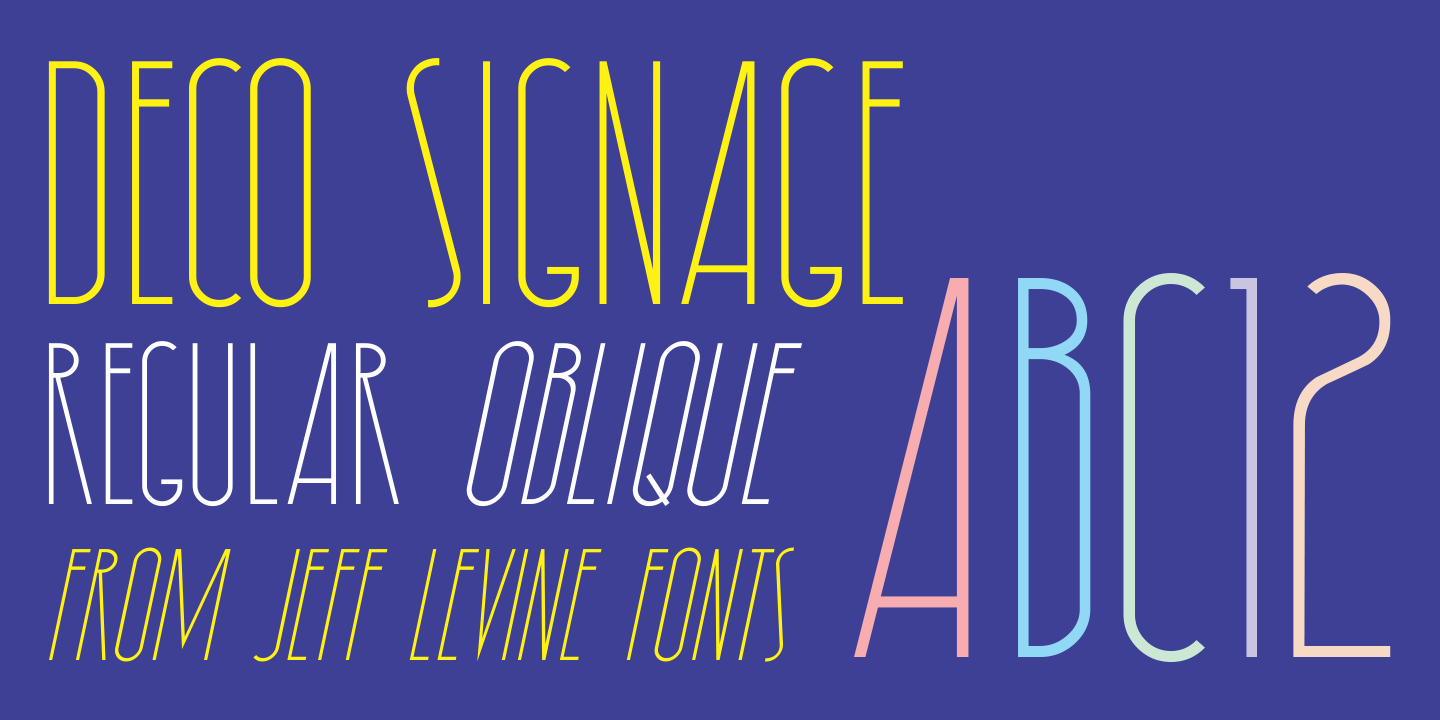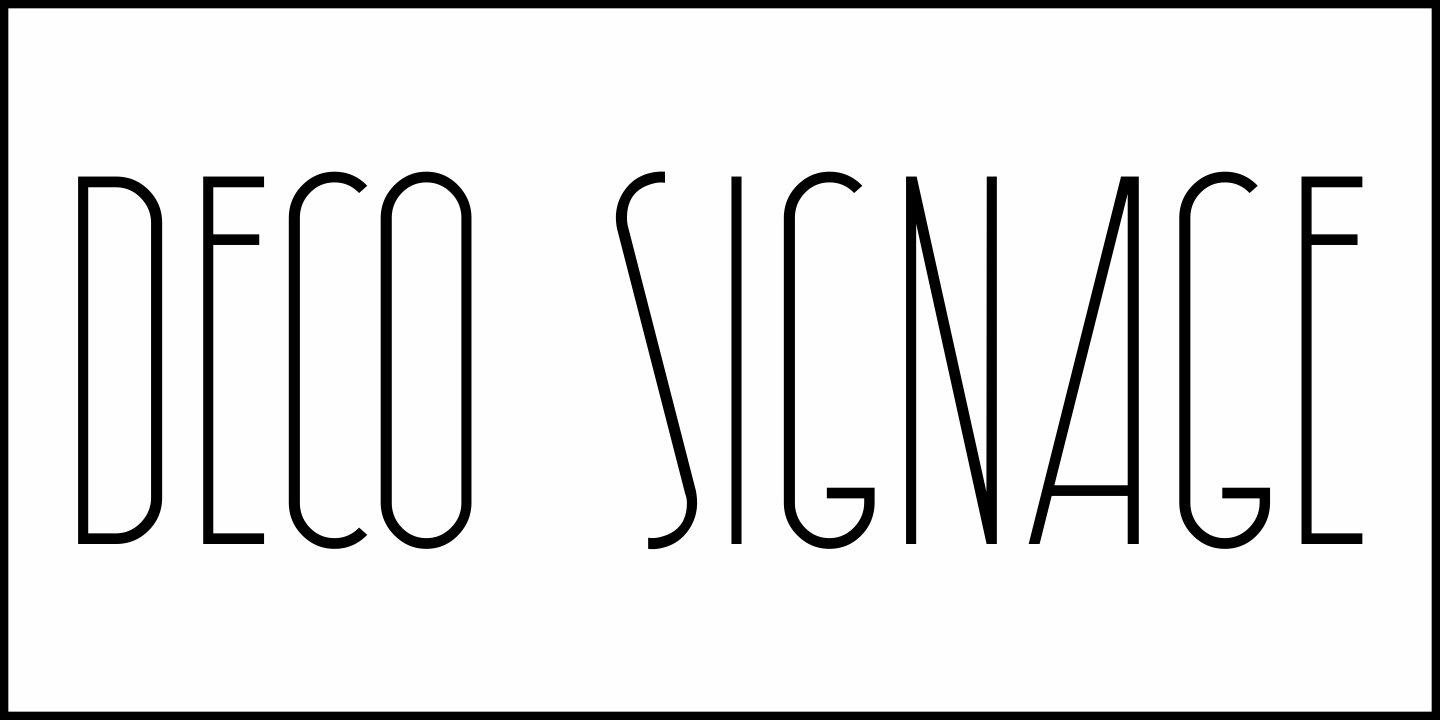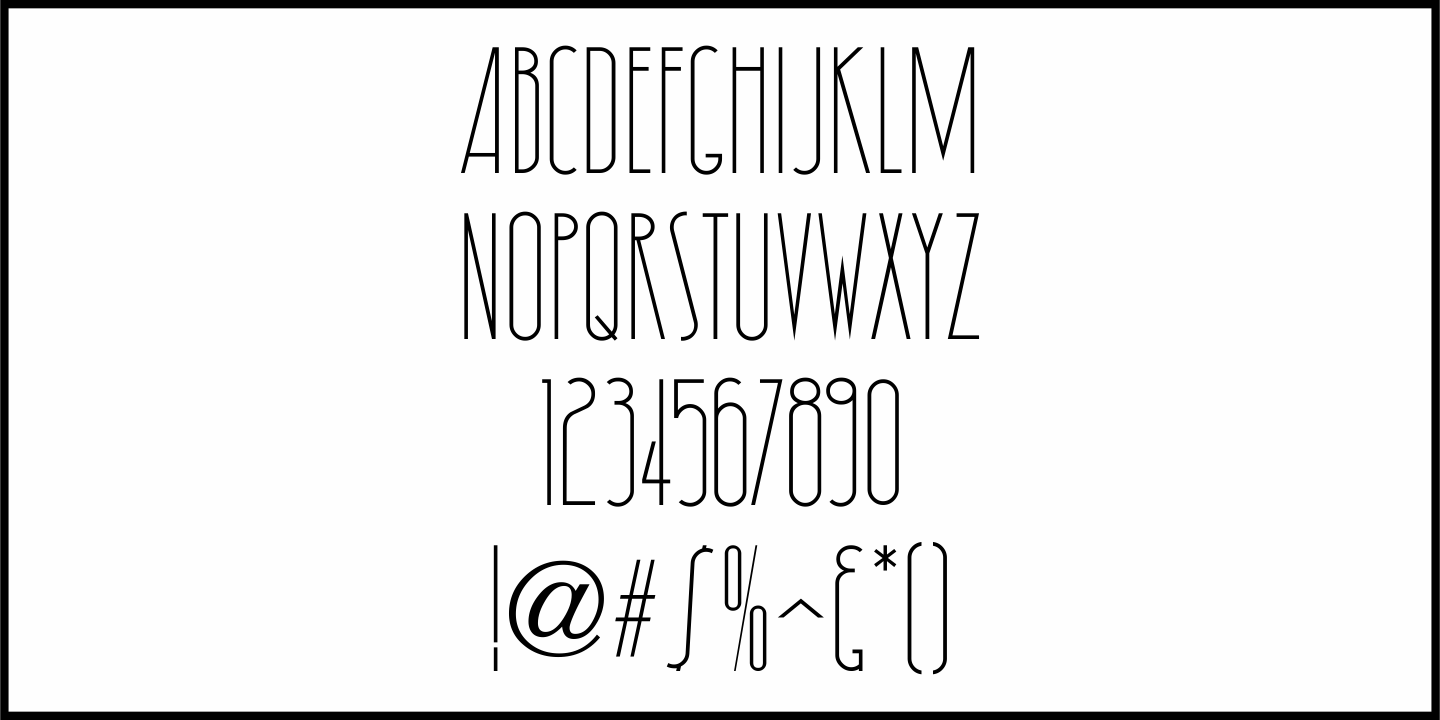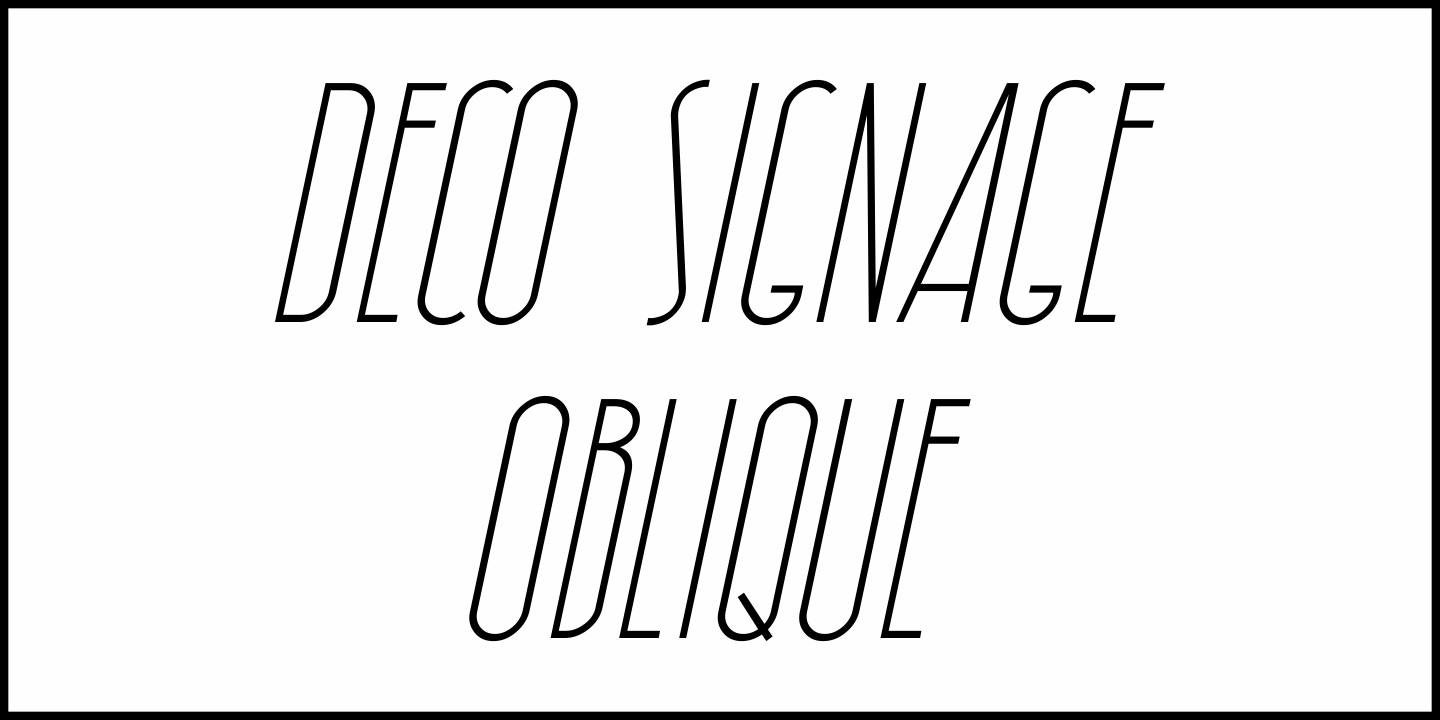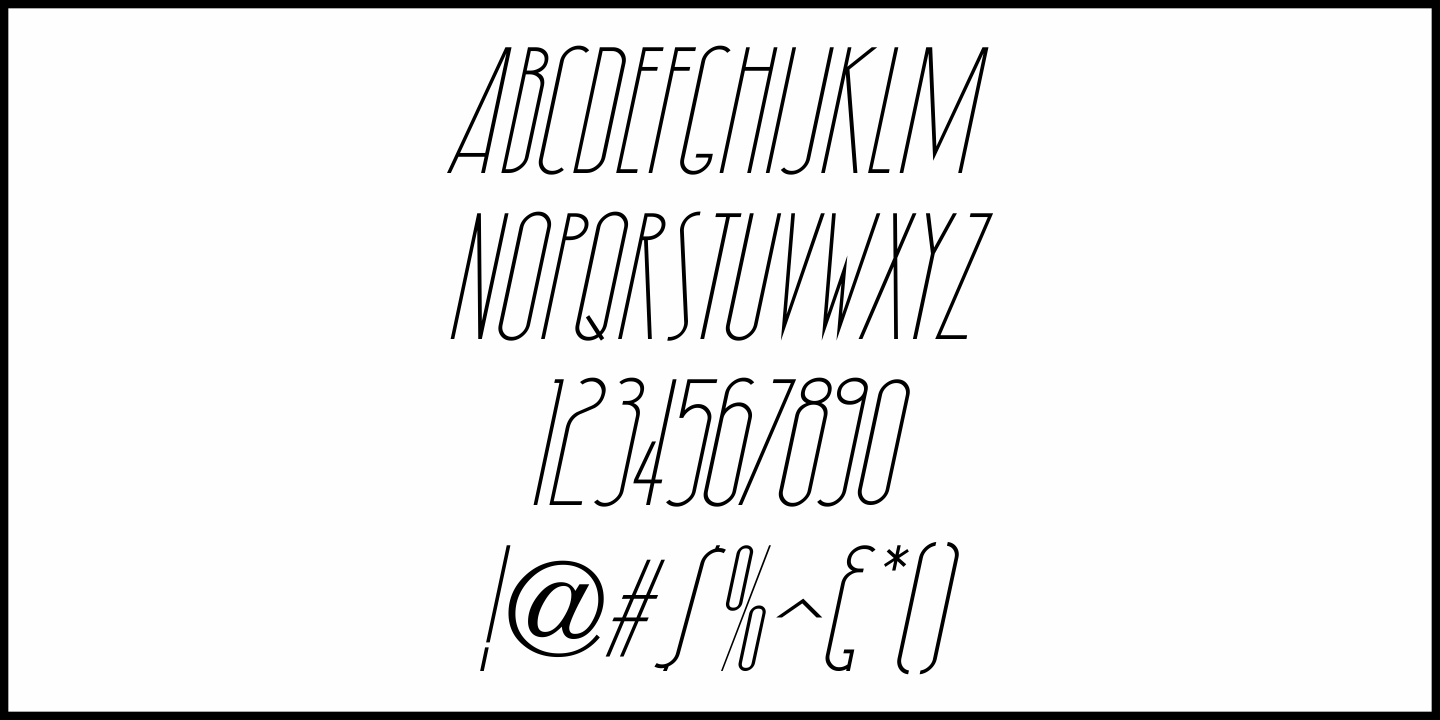
Deco Signage
Deco Signage JNL was inspired by the cast metal letters of a German wall sign “Kaspar Stanggasinger-Haus” in an online display of European signage photography - and is available in both regular and oblique versions.
Although the original age of the sign is unknown, the tall, thin monoline font it’s based on evokes a definite 1940s Art Deco design influence.